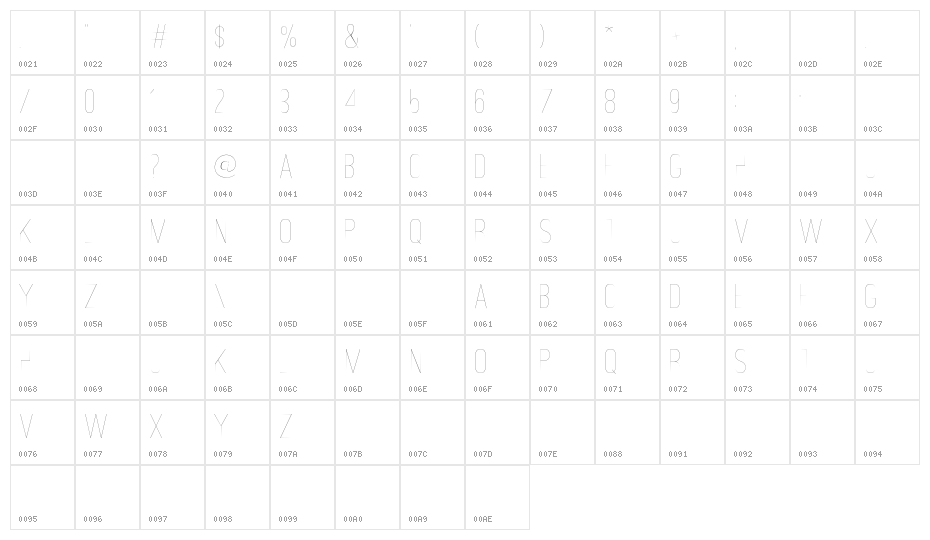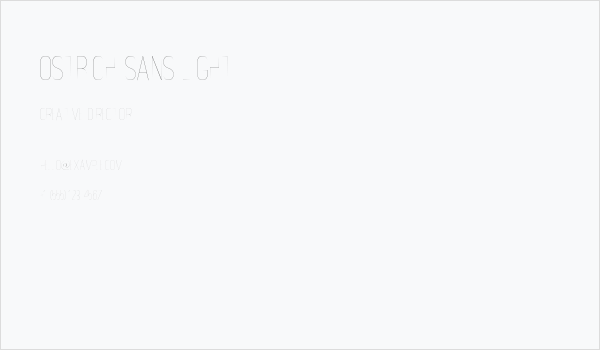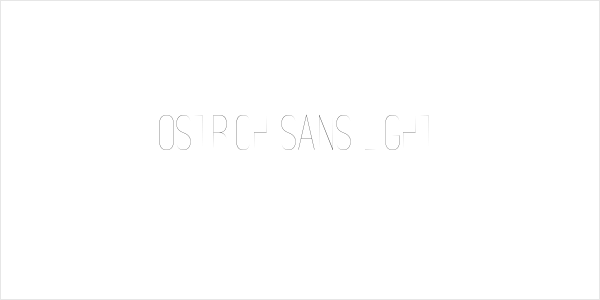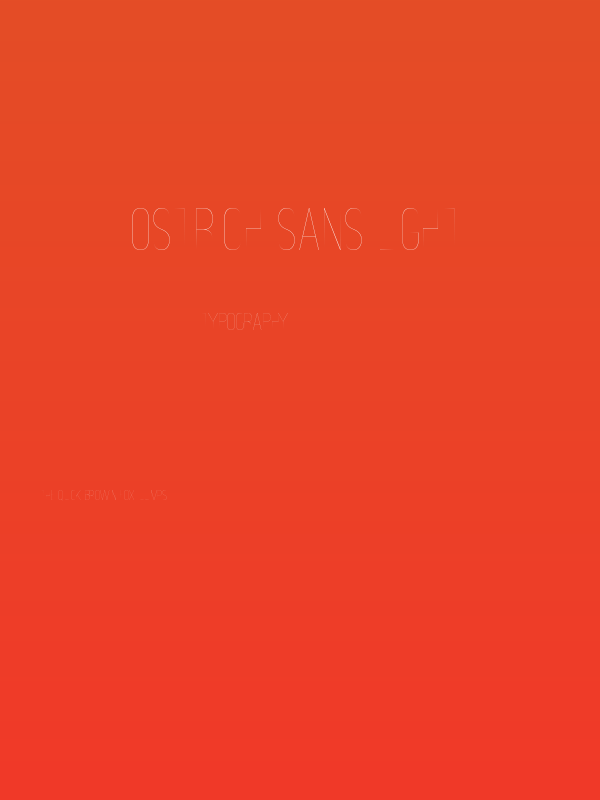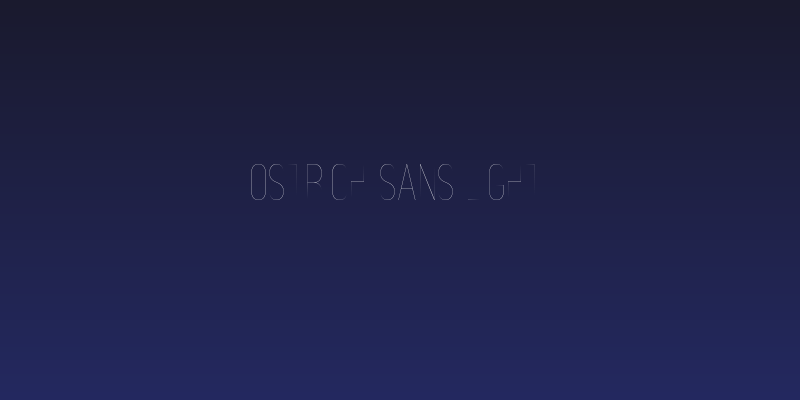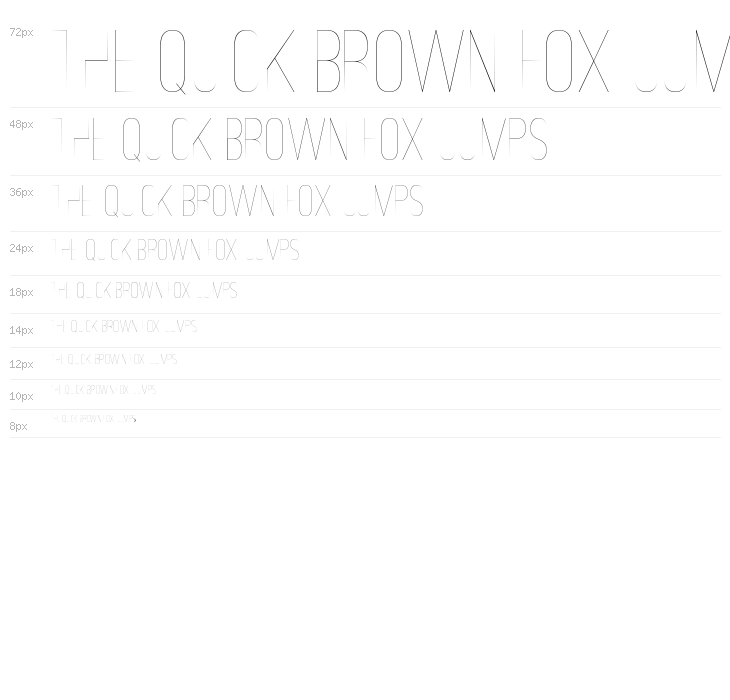
Ostrich Sans Light Font
Ostrich Sans Light Description
This font features a clean, minimalist design with a focus on simplicity and elegance. The characters are constructed with thin, uniform lines that give it a light and airy appearance. The uppercase and lowercase letters maintain a consistent height, contributing to a harmonious and balanced look. The numerals and special characters are designed to match the overall style, ensuring a cohesive appearance across all text elements. This font's modern aesthetic makes it suitable for a variety of design applications, from digital interfaces to print media.
| Proposed Projects | Ideal for branding, digital interfaces, editorial design, and minimalist posters. |